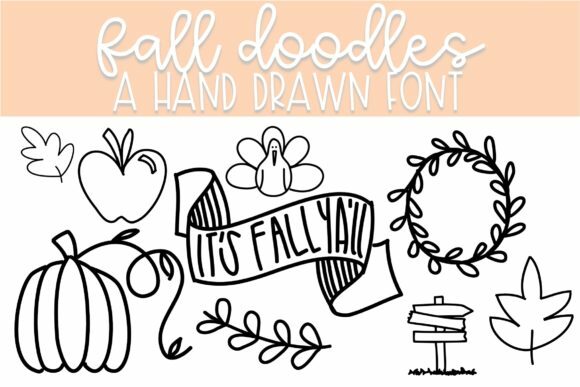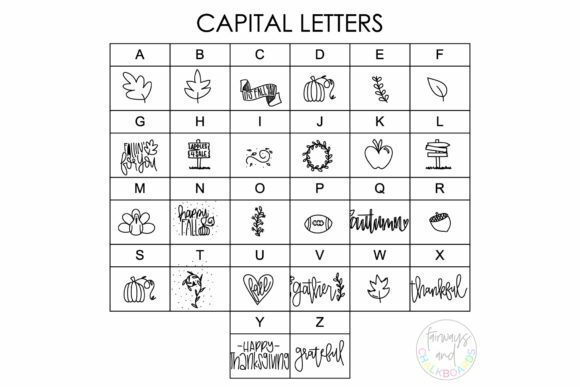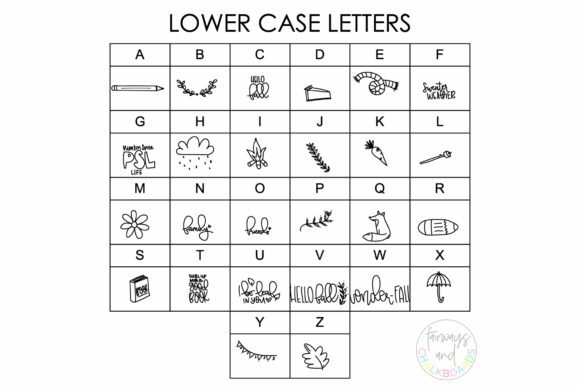
About Fall Doodles Font
Fall Doodles is a delightful dingbats font that embraces the warm and cozy essence of the fall season. With its collection of hand-drawn doodles inspired by autumn, this font can enhance your designs and evoke the spirit of the season. Here are some ways you can utilize Fall Doodles to elevate your creative projects:
1. Seasonal Graphics: Whether you’re designing social media posts, blog headers, or promotional materials, Fall Doodles can be the perfect addition to your fall-themed graphics. Use the doodles to create borders, dividers, or decorative elements that evoke the essence of autumn, such as leaves, pumpkins, acorns, cozy sweaters, and hot beverages. This font will infuse your designs with the charm and warmth of the season.
2. Fall Event Invitations: If you’re hosting a fall-themed event, Fall Doodles can be an excellent choice for designing invitations. Incorporate the doodles to create themed borders or decorative accents that capture the essence of the event. Whether it’s a harvest festival, a Thanksgiving gathering, or a cozy bonfire, this font will add a touch of seasonal flair to your invitations and set the right tone.
3. Scrapbooking and Journaling: Fall Doodles can also be a valuable asset for scrapbooking and journaling enthusiasts. Use the doodles as embellishments, decorative elements, or even as headers and titles for your pages. Whether you’re documenting your autumn adventures, gratitude lists, or memories from the season, this font will help you create visually appealing and thematic layouts.
4. Seasonal Branding and Packaging: If you run a business or sell products, incorporating Fall Doodles into your branding and packaging can add a special touch during the fall season. Use the doodles as accents on your logo, packaging labels, or product tags to create a cohesive and seasonal aesthetic. This font will evoke the warmth and charm of autumn and make your brand or products more appealing to customers.
5. Home Decor and Crafts: Fall Doodles can also be used in DIY projects, home decor, and crafts. Create custom prints, signs, or stencils using the doodles to add a festive and cozy touch to your living space. Additionally, you can incorporate the font into fall-themed crafts like greeting cards, gift tags, or party decorations.
In summary, Fall Doodles is a friendly dingbats font with a fall/autumn theme that can elevate your designs and bring the essence of the season to your creative projects. Whether you’re designing seasonal graphics, fall event invitations, scrapbooking layouts, branding and packaging, or engaging in DIY crafts, this font’s hand-drawn doodles will add a touch of charm and warmth to your work. Embrace the spirit of autumn with Fall Doodles and create stunning designs that capture the beauty of the season.